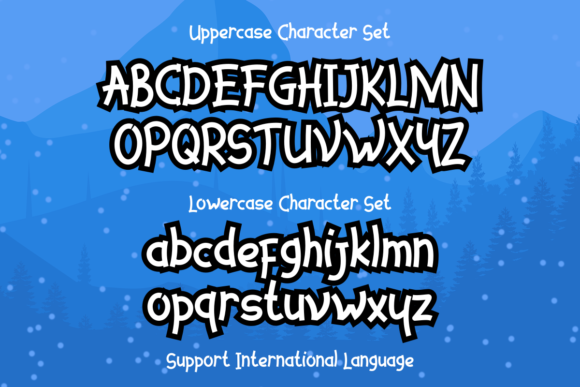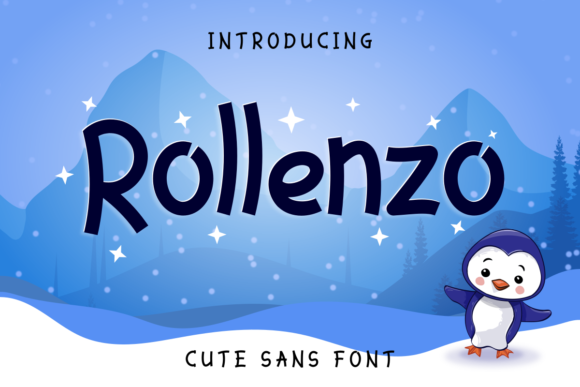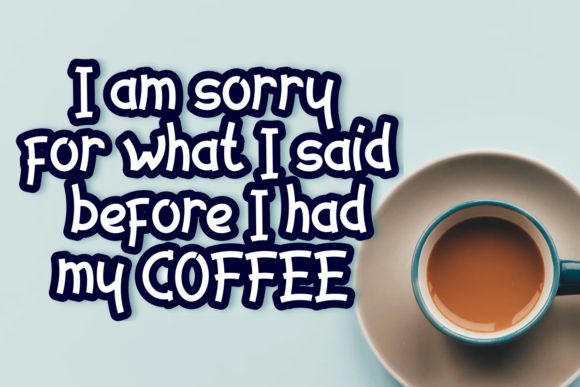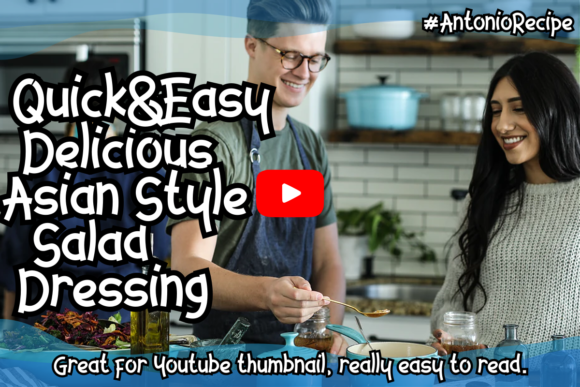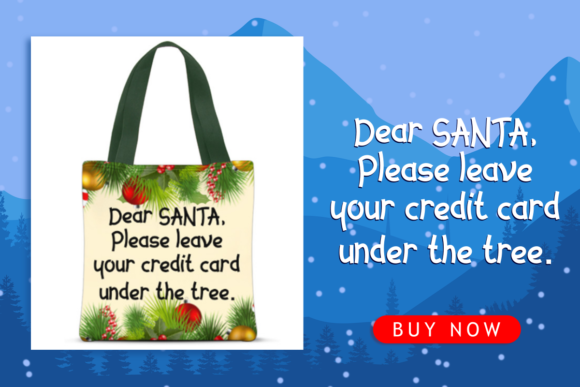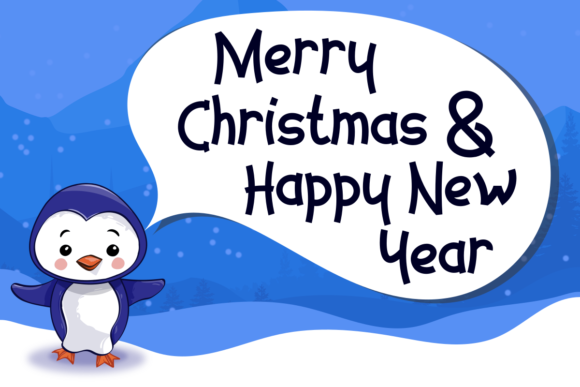
HomeSans Serif FontsRollenzo Font Sans Serif Fonts Rollenzo Font FacebookXPinterestWhatsApp Rollenzo Font 1 of 7 About Rollenzo Font Rollenzo is a cute and quirky sans serif font with a whimsical feel. Get inspired by its unique charm. DOWNLOAD NOW People also explored Planner Vintage Font Holiday Phagoth Font Whacko Font Happy American Font Rainbow Dinos Font Galliyani Font Paris in the Spring Font Summer Signature Font 323 0 TagsRollenzo Font Previous articleLaurelin FontNext articleMonolith Font LEAVE A REPLY Cancel reply Comment: Please enter your comment! Name:* Please enter your name here Email:* You have entered an incorrect email address! Please enter your email address here Website: Save my name, email, and website in this browser for the next time I comment. Personal Use Free Diland Personal Use Free Read more about this font I Am Exceptional Personal Use Free Read more about this font Thruster Personal Use Free Read more about this font Abingdon Personal Use Free Read more about this font BLOG Exploring Font Trends Shaping Communication in the Digital Era Fonts, like all design elements, are subject to trends. They play a crucial role in communicating a brand's personality,... How to Install and Use Fonts on Windows, macOS, and Web Projects Where to Buy American Fonts Online in 2024 5 Fonts That Will Dominate Design Trends in 2026